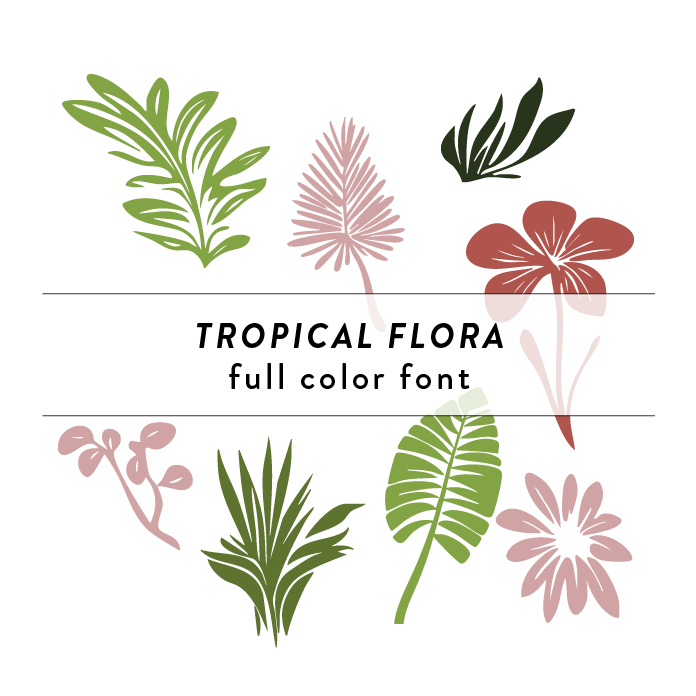
Tropical Flora Full Color Font is a vibrant and playful font design inspired by wild animals and flowers found in tropical forests. The font features intricate details and bold colors, making it perfect for adding a fun and exotic touch to various craft projects. It is ideal for creating eye-catching designs for invitations, posters, and other creative projects. This font is a OTF craft font that will appear in color only when used with the silhouette software.